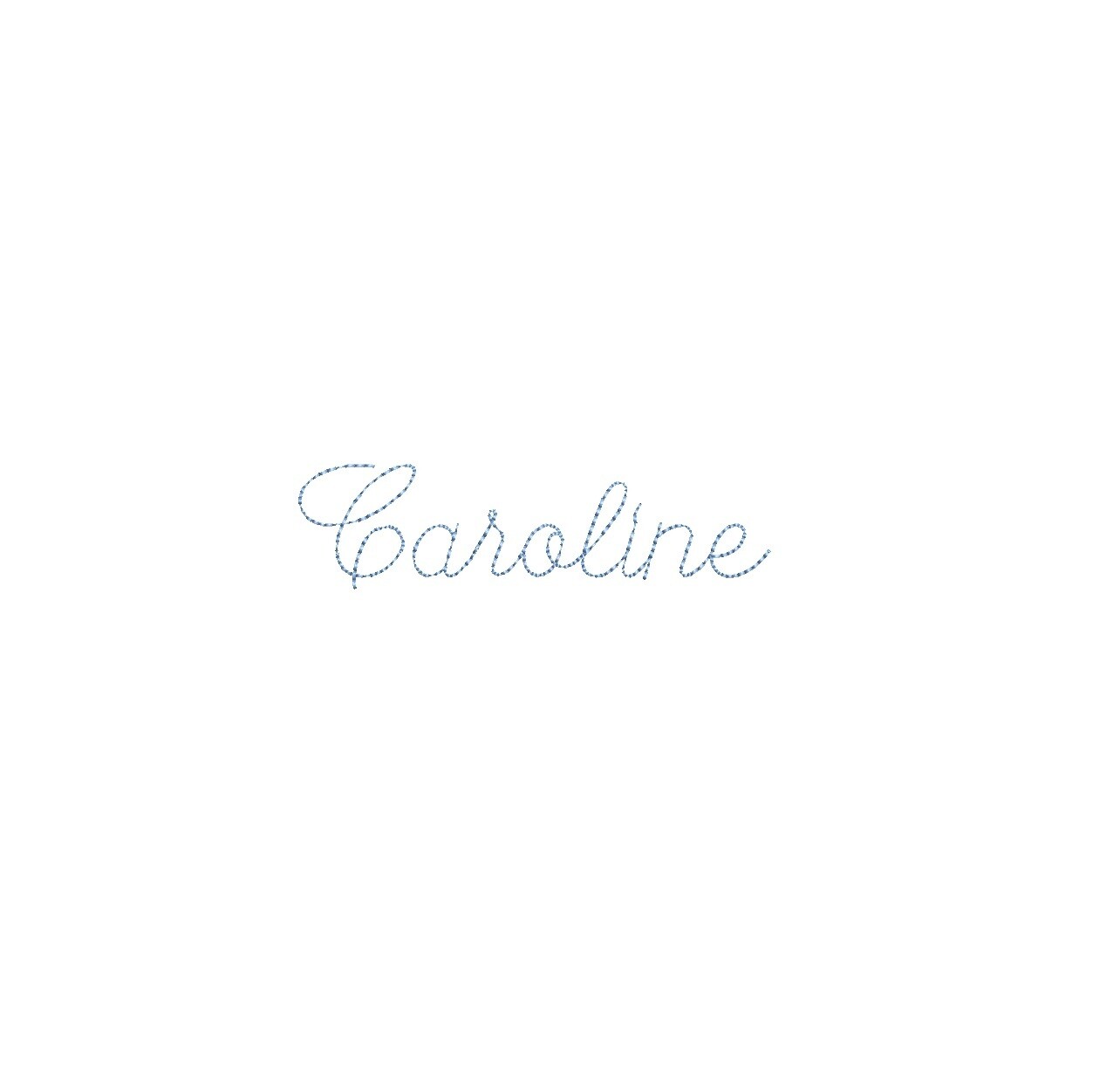
Introducing the Caroline Bean Stitch ESA font, your ultimate digitizing solution compatible with Wilcom Studio e4.5.6 and Hatch 3 versions and up. Crafted with precision and finesse, this font elevates your embroidery designs to new heights. Its elegant bean stitch style adds a touch of sophistication to any project, be it apparel, accessories, or home decor. With smooth curves and immaculate lines, the Caroline Bean Stitch ESA font guarantees flawless embroidery results. Enhance your creations and impress clients with this user-friendly font that seamlessly integrates with your preferred software. Don't miss this opportunity to create stunning embroidery pieces effortlessly. Grab yours now and elevate your embroidery game!